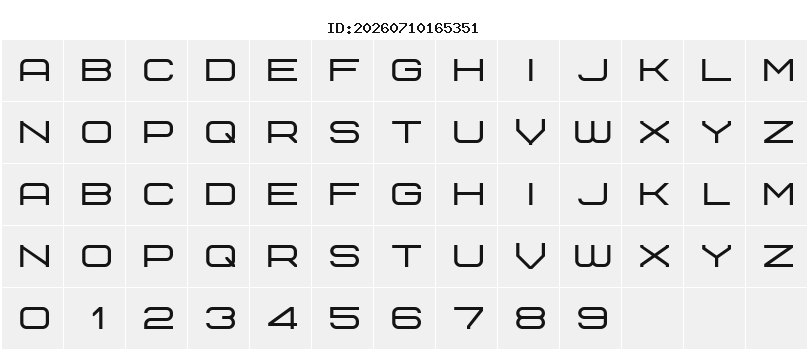
• Font Name: Genx BiKubic
• Full Font Name: Genx BiKubic
About Genx BiKubic.ttf
Genx BiKubic.ttf is a modern, elegant sans-serif font designed for ultimate readability and visual harmony. Perfect for branding, headlines, web design, and print materials.